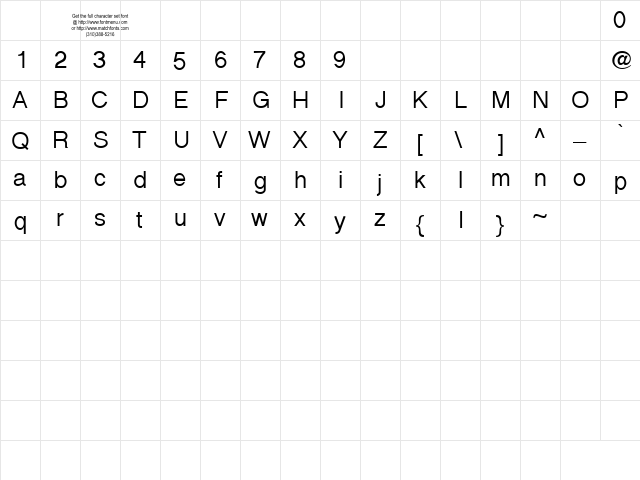
Halotique Tryout Regular
Design Context for Halotique Tryout Typeface
Halotique Tryout takes a measured approach to typography — its balanced proportions and neutral character make it a reliable workhorse for both digital and print work.